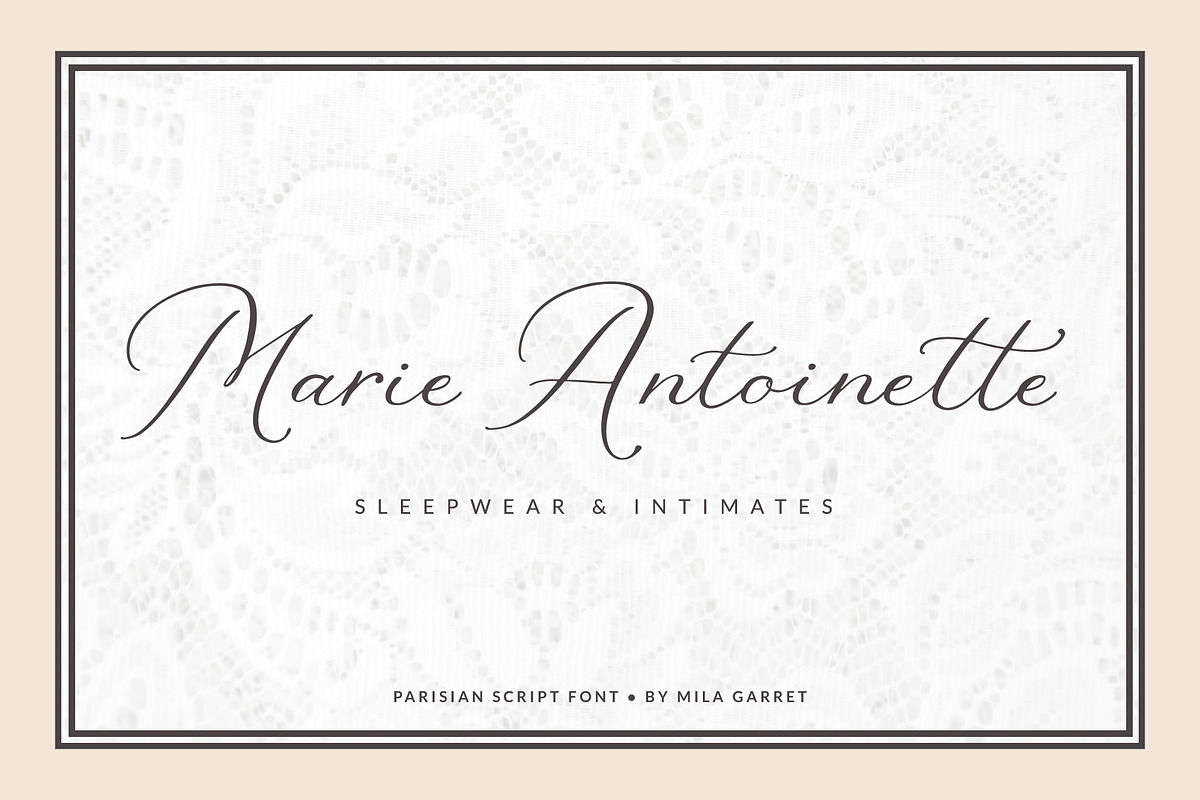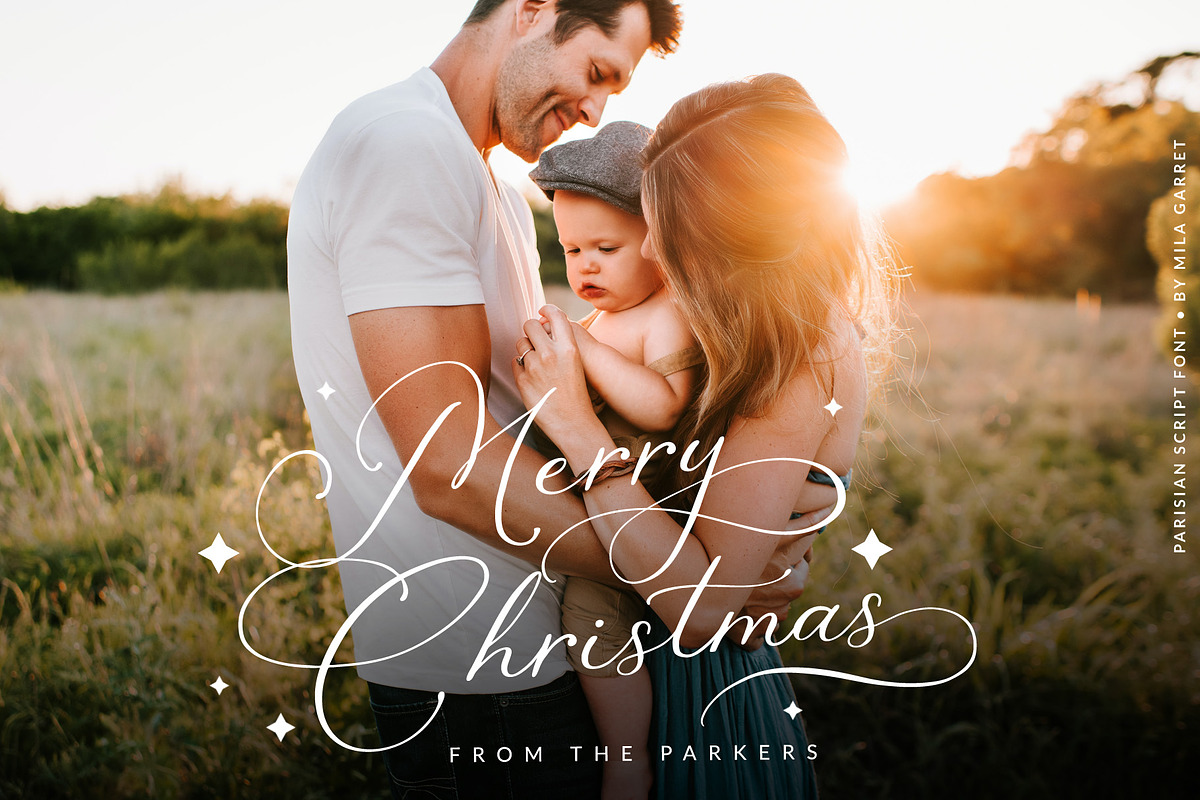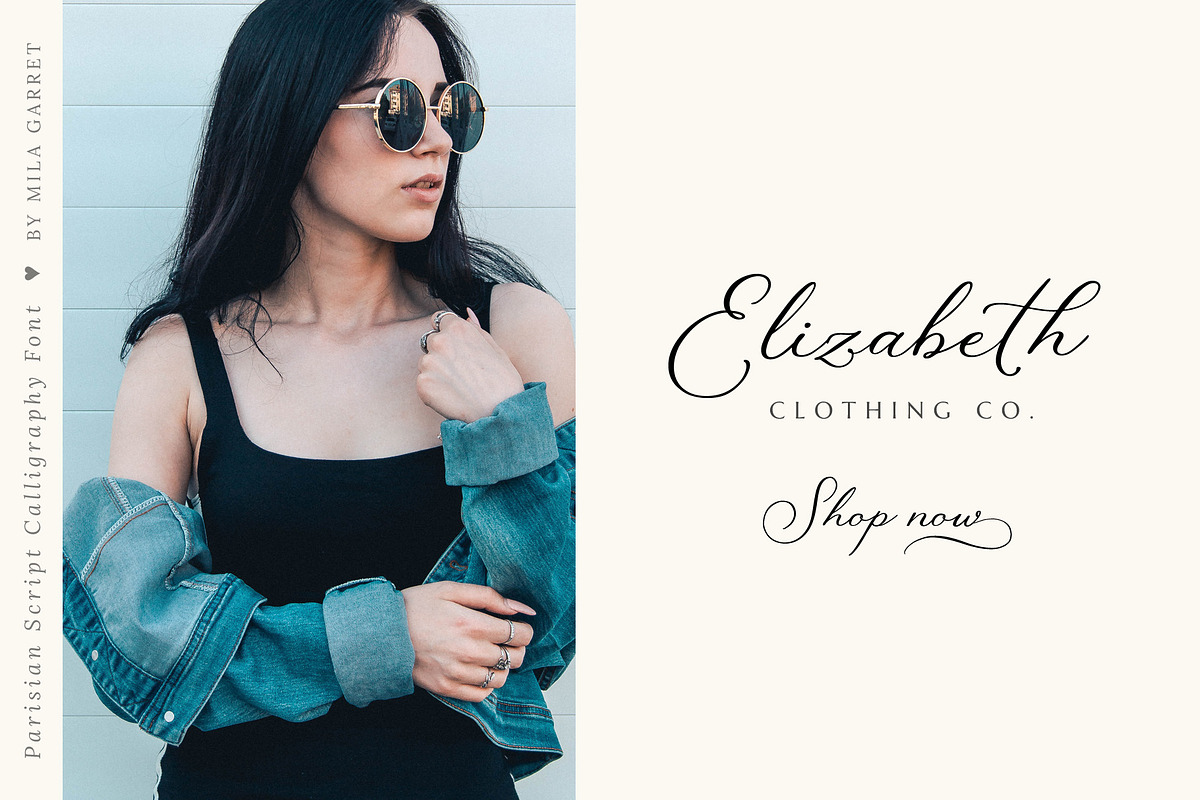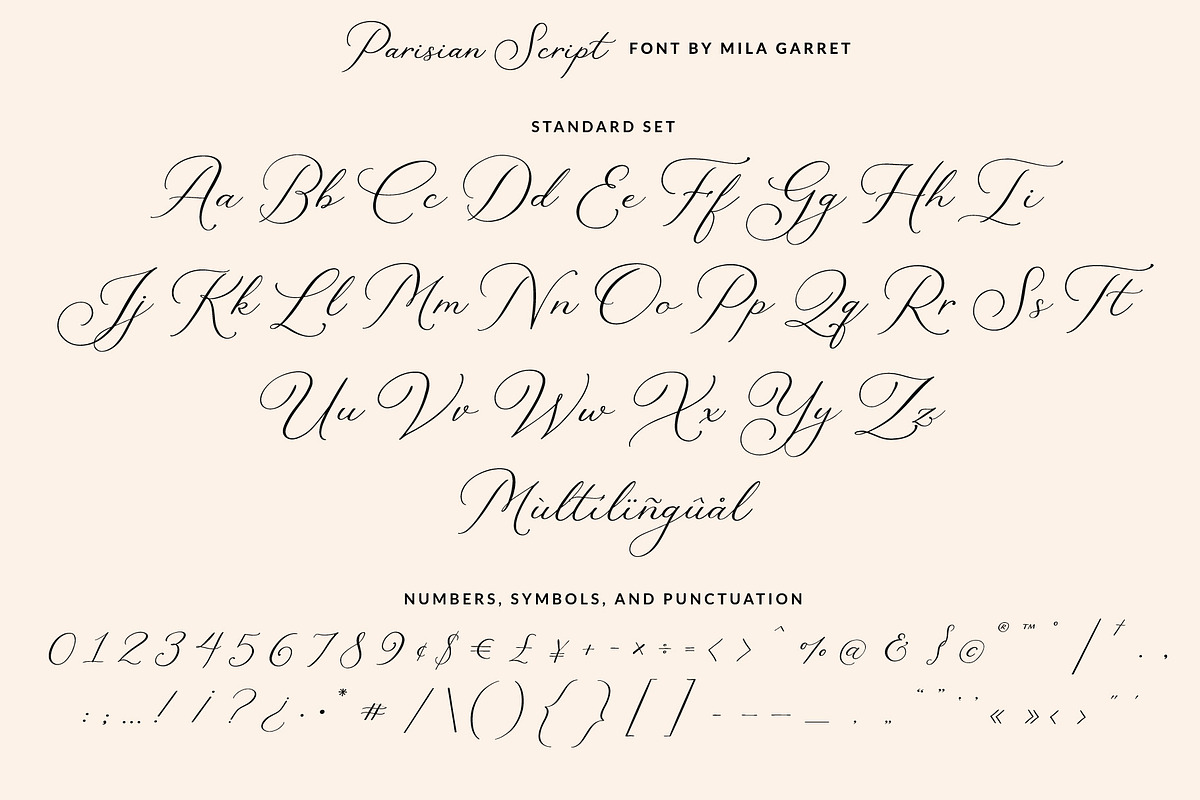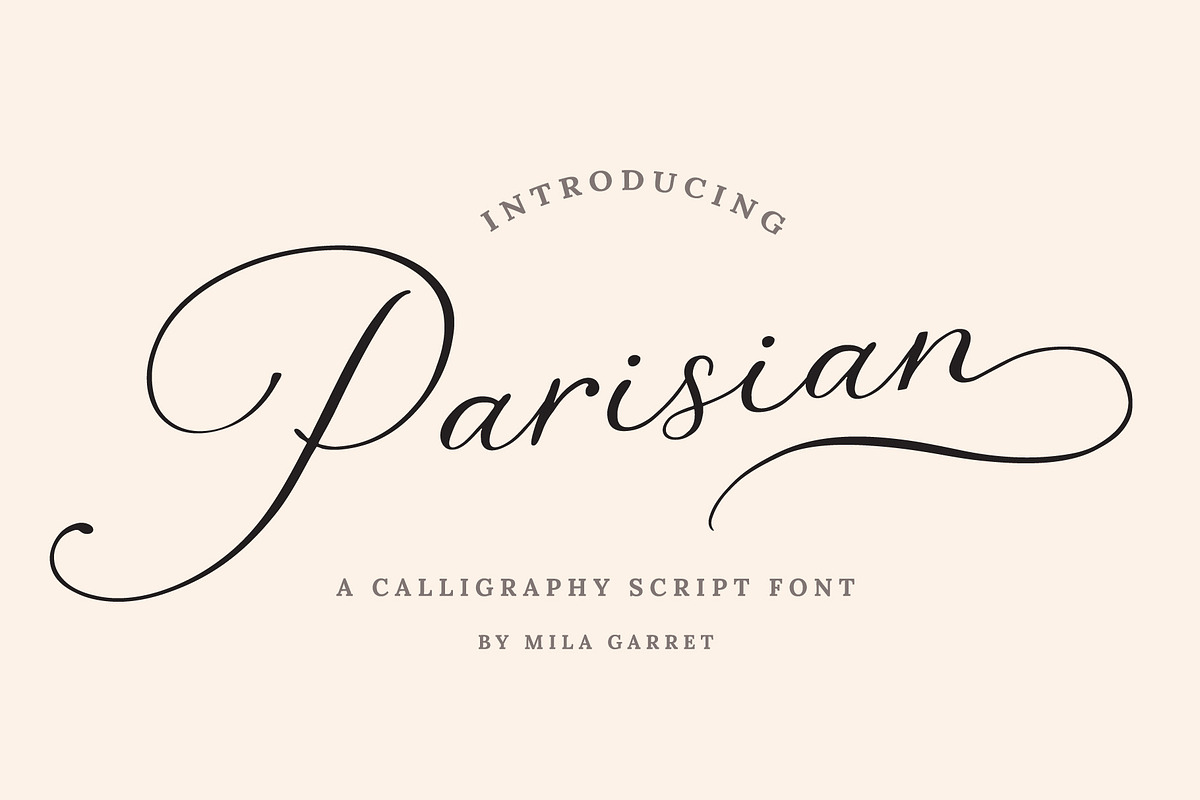
Parisian Vintage Calligraphy Script
Parisian Script is a vintage inspired calligraphy script font, perfect for that elegant touch needed for logos, wedding invitations, modern websites, greeting cards, and more! Included are a full set of uppercase swash letters, as well as ending lowercase swashed versions, for a more custom-branded look.
Parisian Script Features
- Full Set of standard alphabet and punctuation
- Extra set of beginning swashed capitals
- Extra set of ending swashed lowercase
- Extra stylistic alternates and ligatures
- Multilingual Characters (ÁÂÄÀÅÃÆÇÐÉÊËÈÍÎÏÌÑÓÔÖÒØÕŒÞÚÛÜÙẂŴẄẀÝŶŸỲ áâäàåãæçðéêëèíîïìñóôöòøõœþßúûüùẃŵẅẁýŷÿỳŠŽšž€£¥ªº)